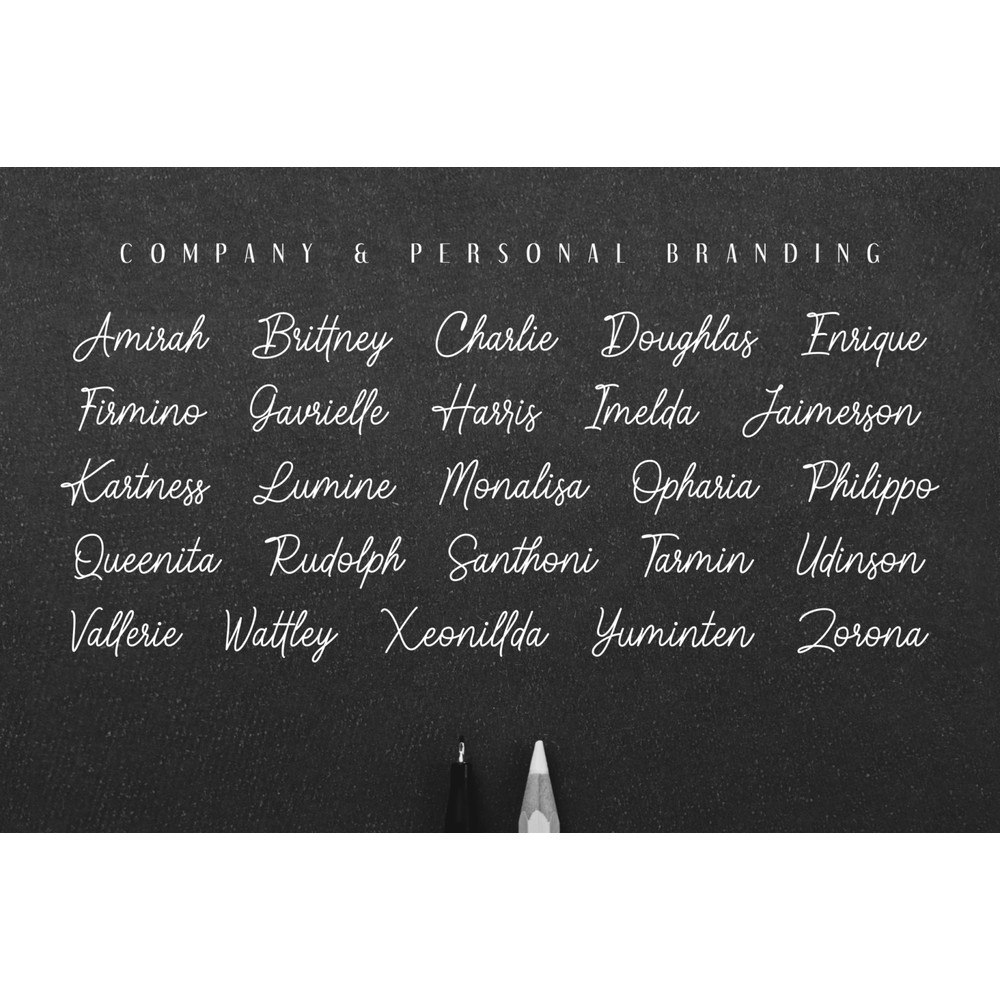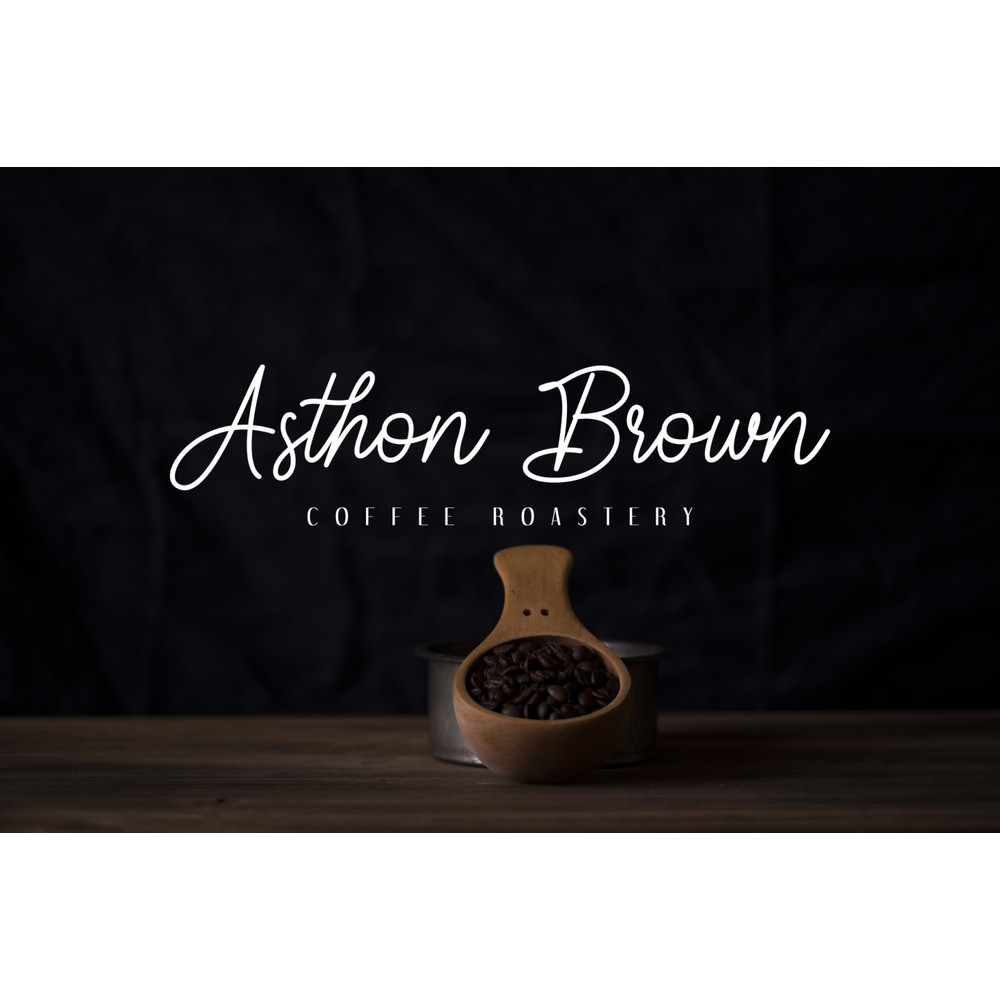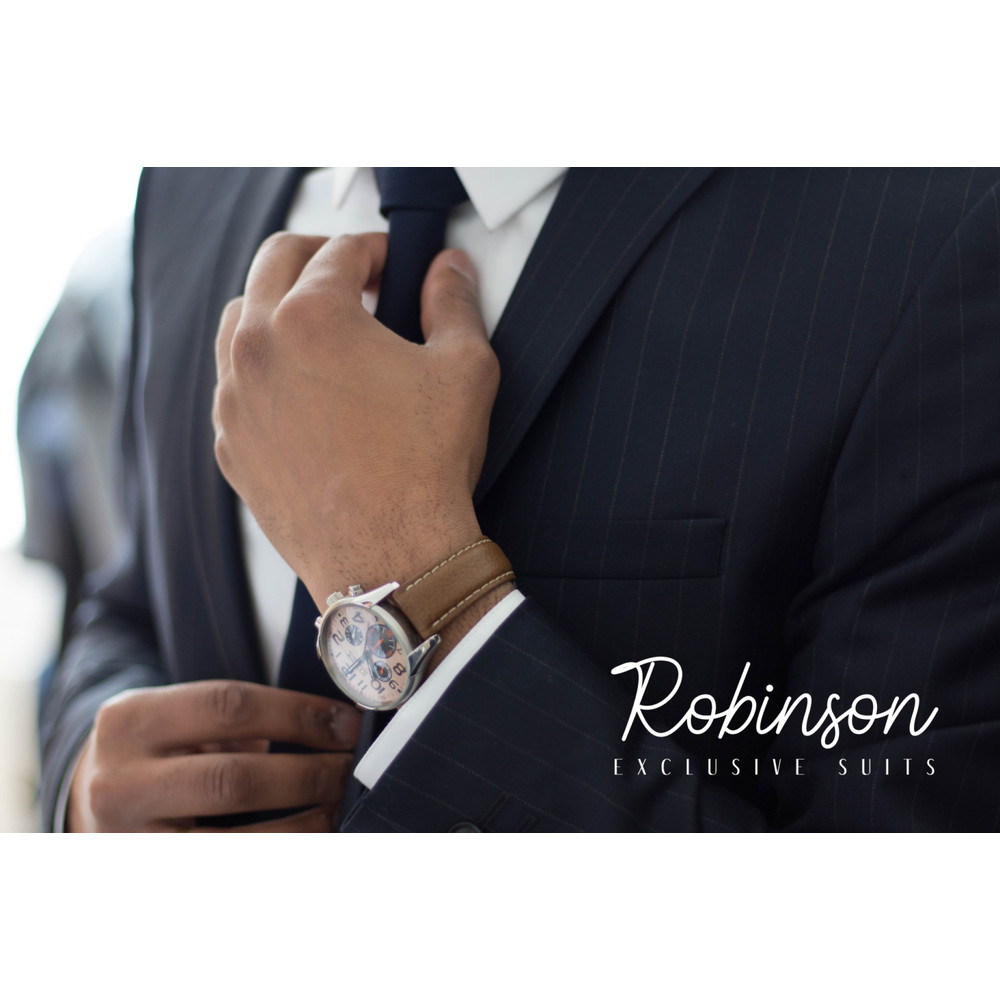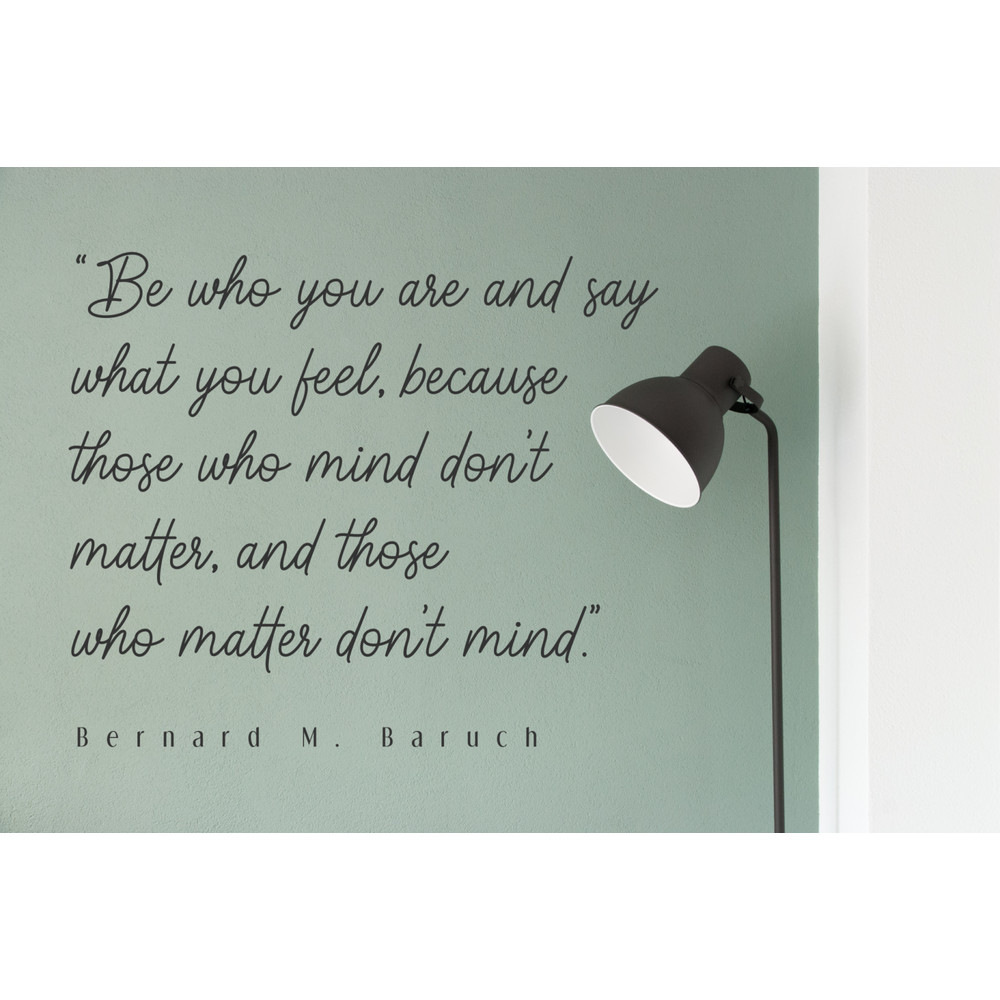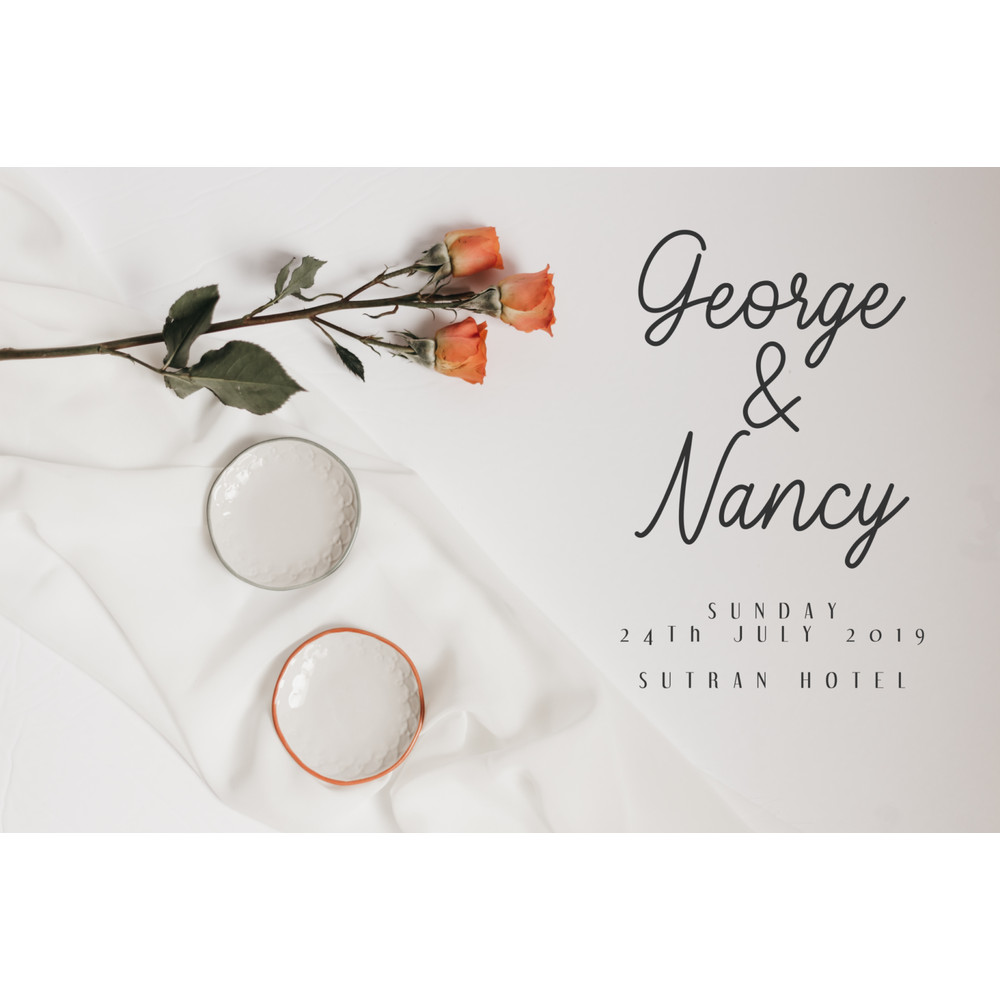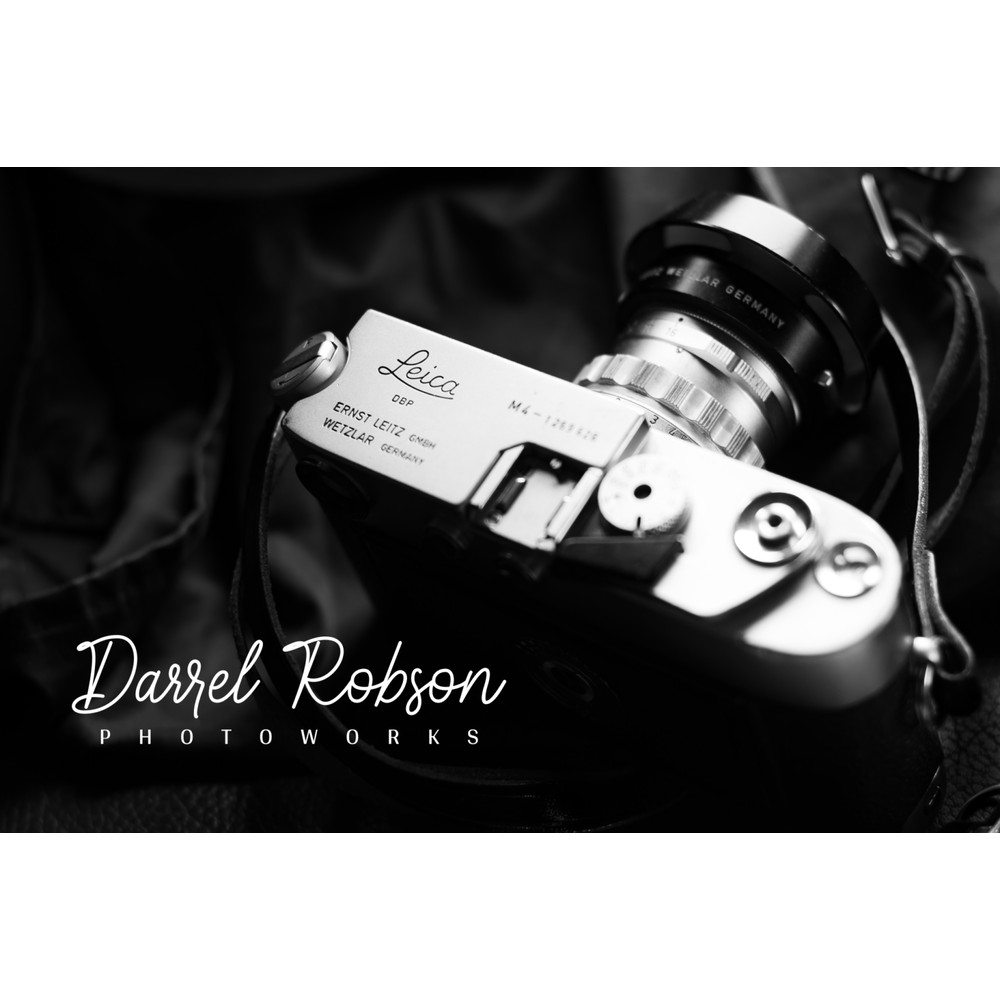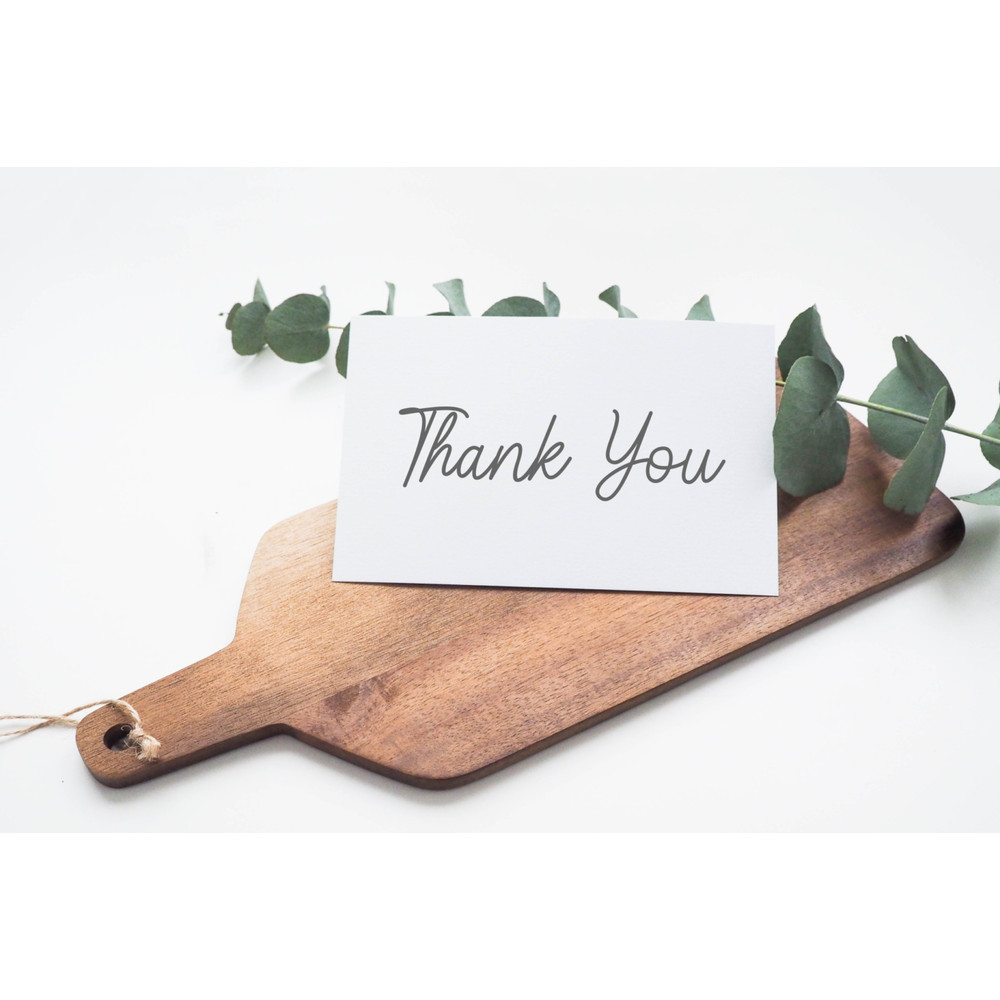
Introducing our new product, Kaylland monoline typeface. Designed with signature style and handwriting taste, it looks nice and elegant. Kaylland font comes with ligature and swashes to make it more natural and stylish.
This font is suitable for any design purposes such as logo, headline, quotes, apparel, wedding invitation, and signature.